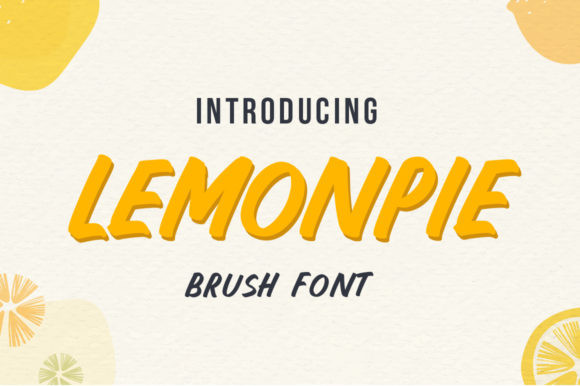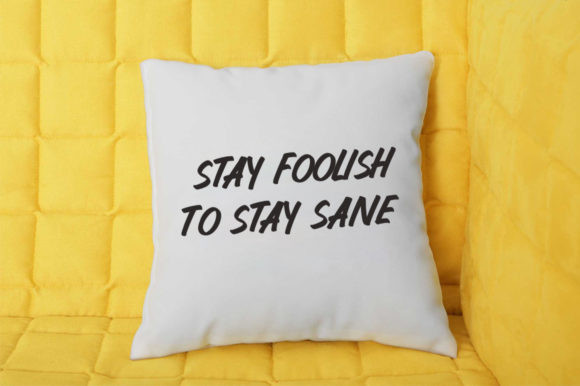
Lemonpie Font
Lemonpie is a thick lettered and bold display font. Add this font to your favorite creative ideas and notice how it makes them come alive!